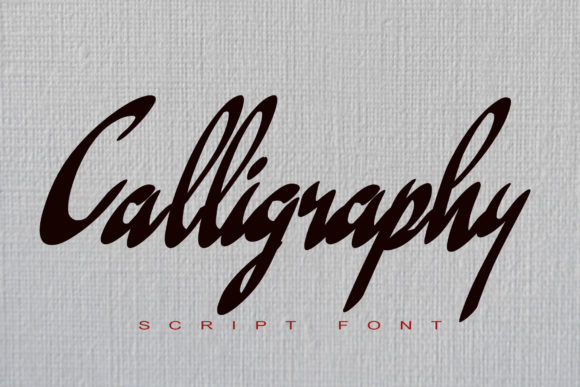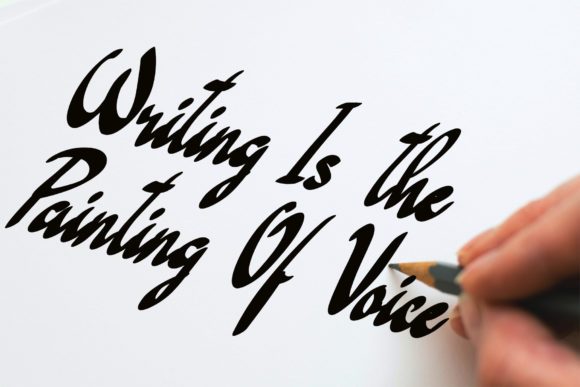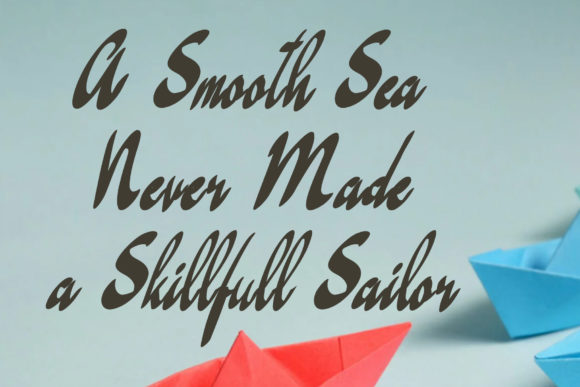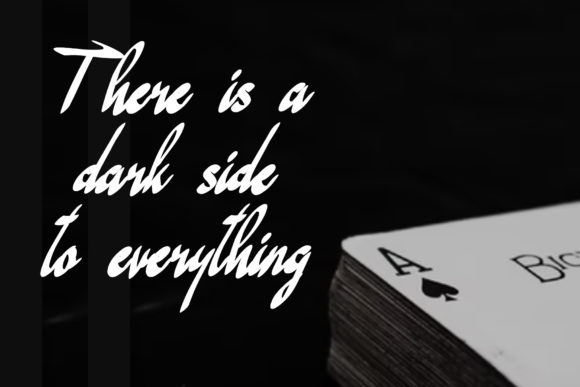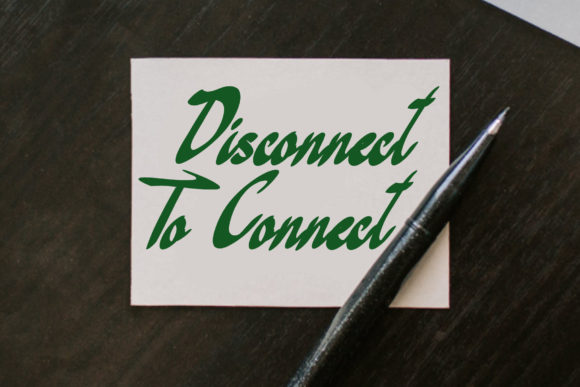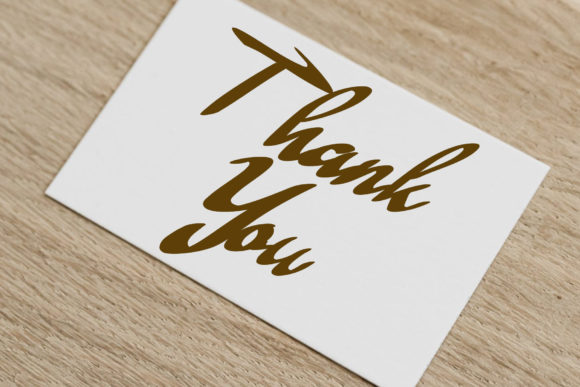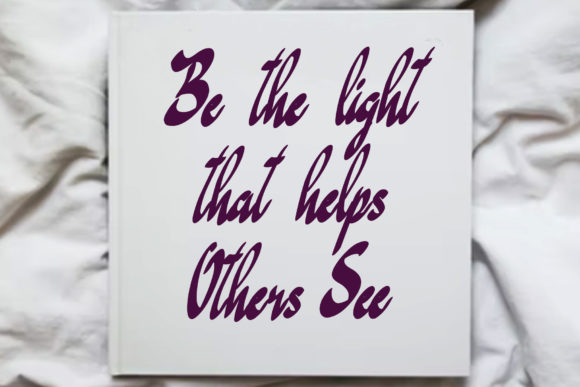
Calligraphy Font
About Calligraphy Font
Calligraphy feels equally charming and elegant. It looks stunning on wedding invitations, thank you cards, quotes, greeting cards, logos, business cards and every other design which needs a handwritten touch.